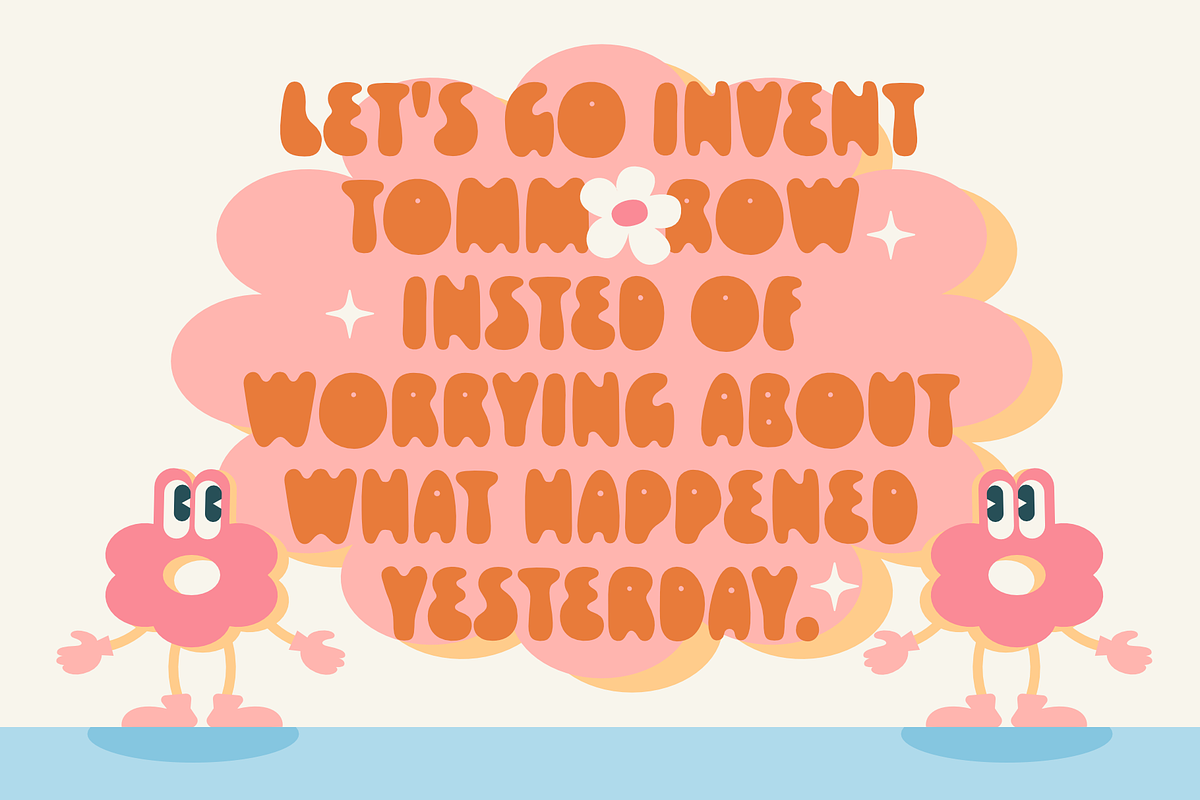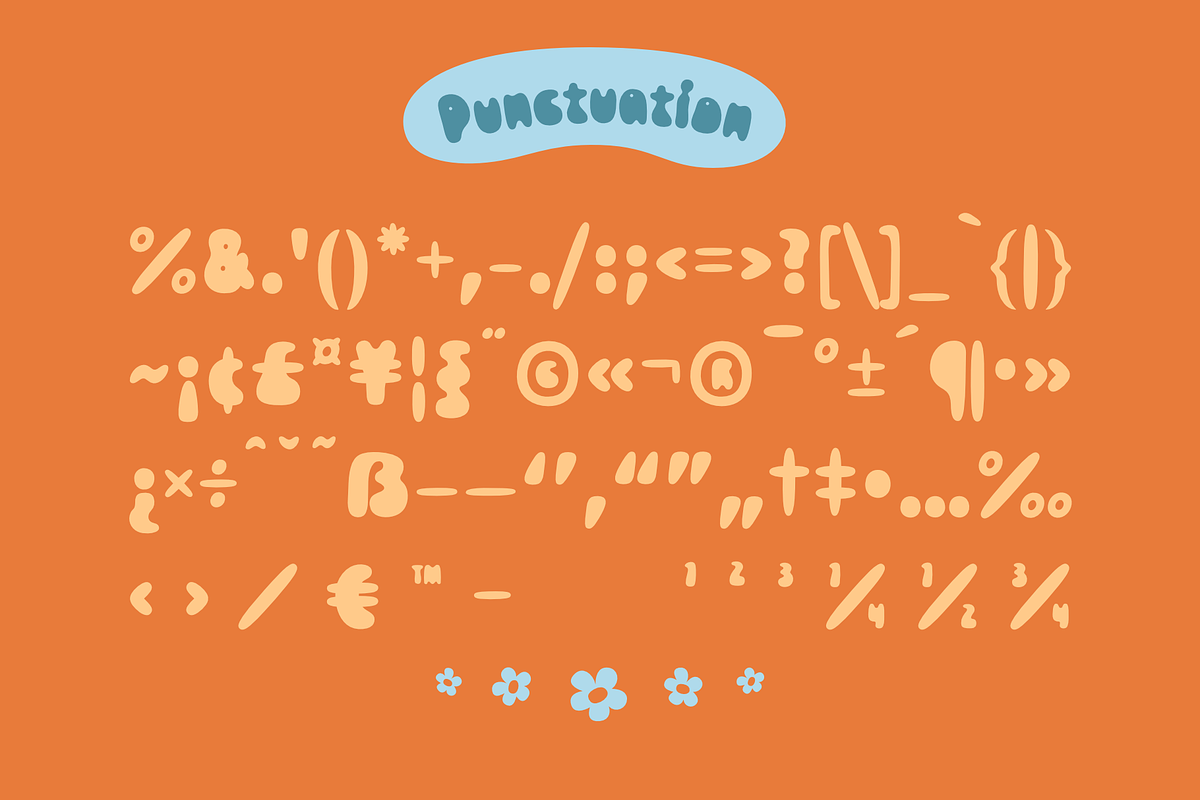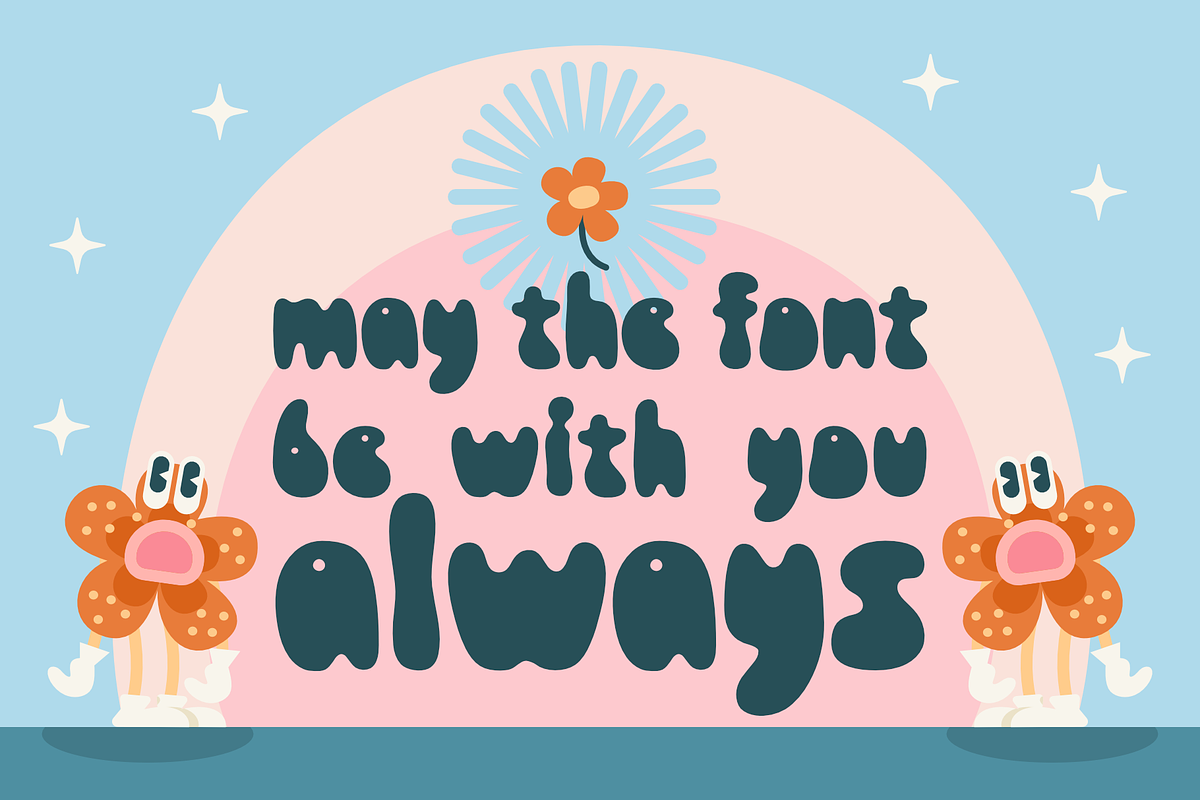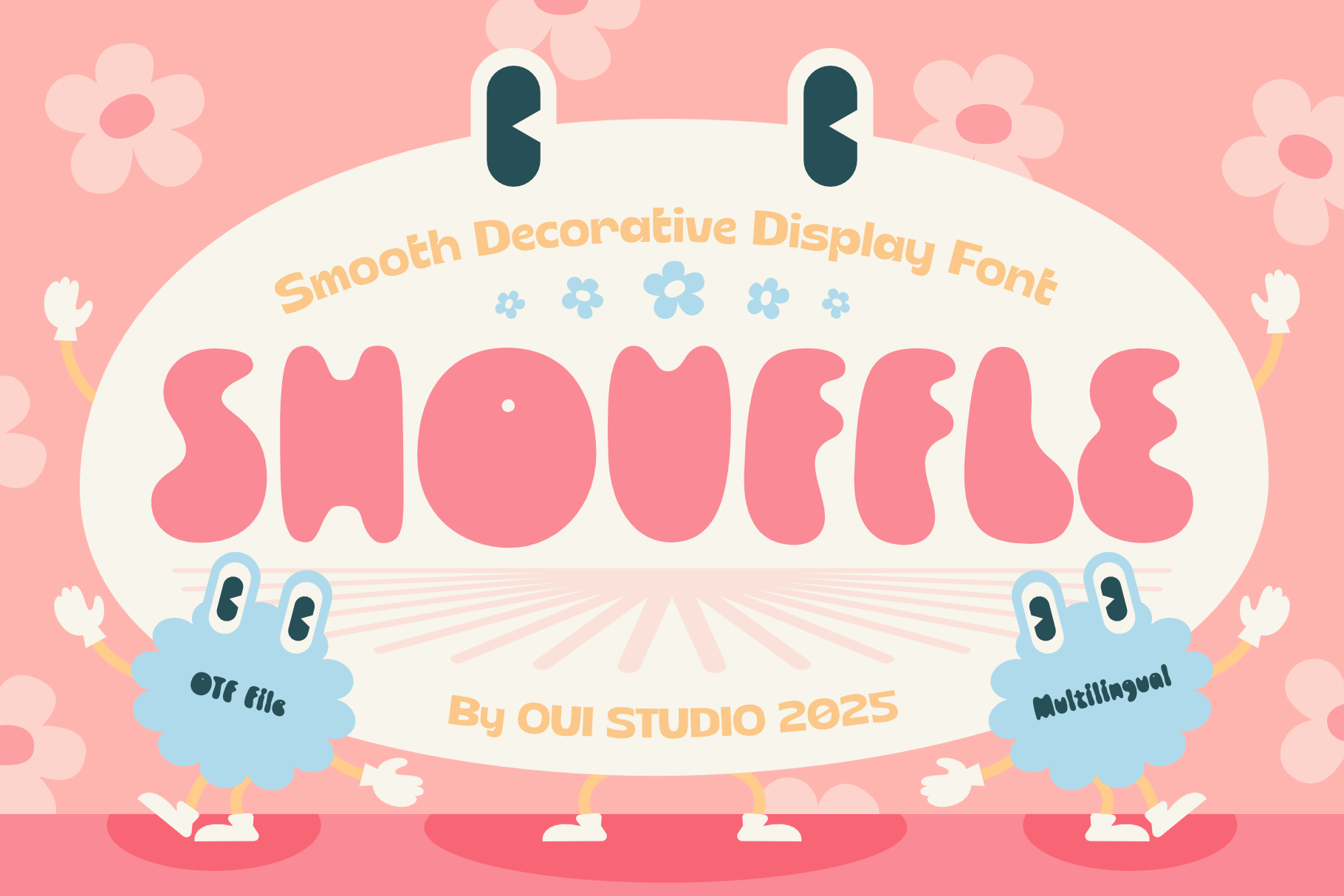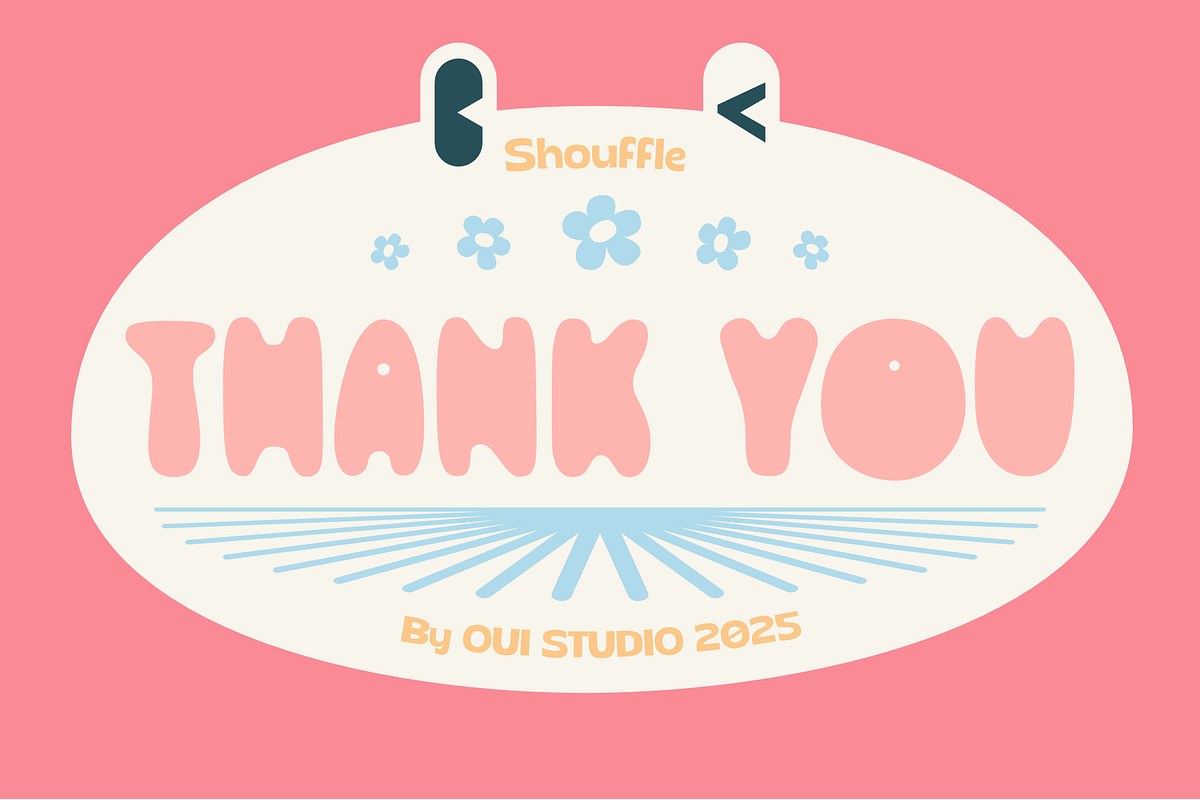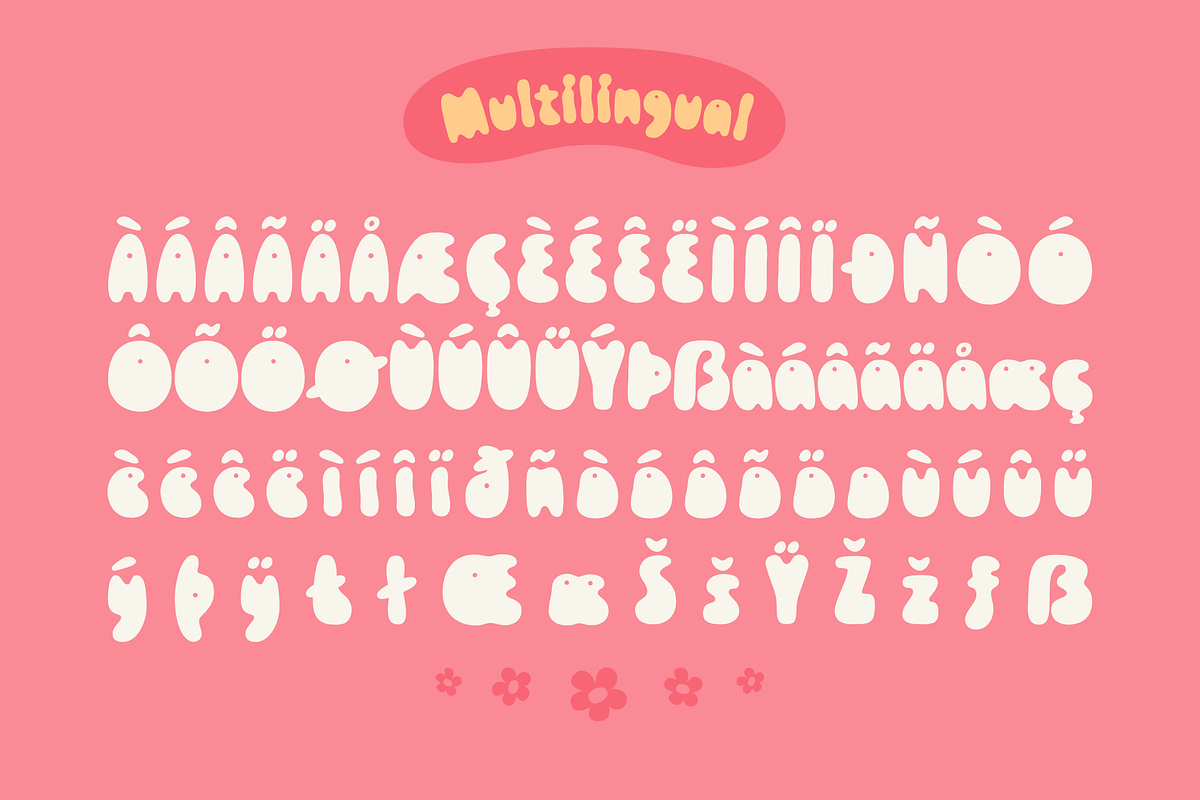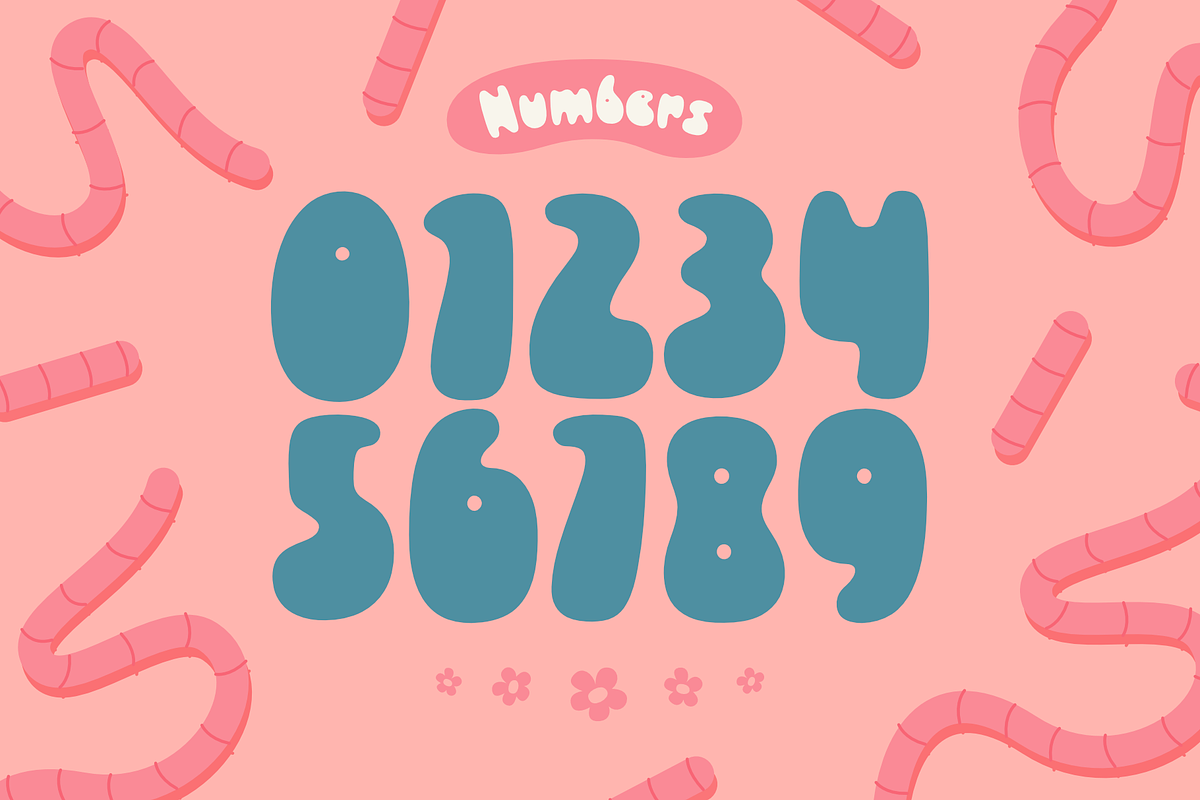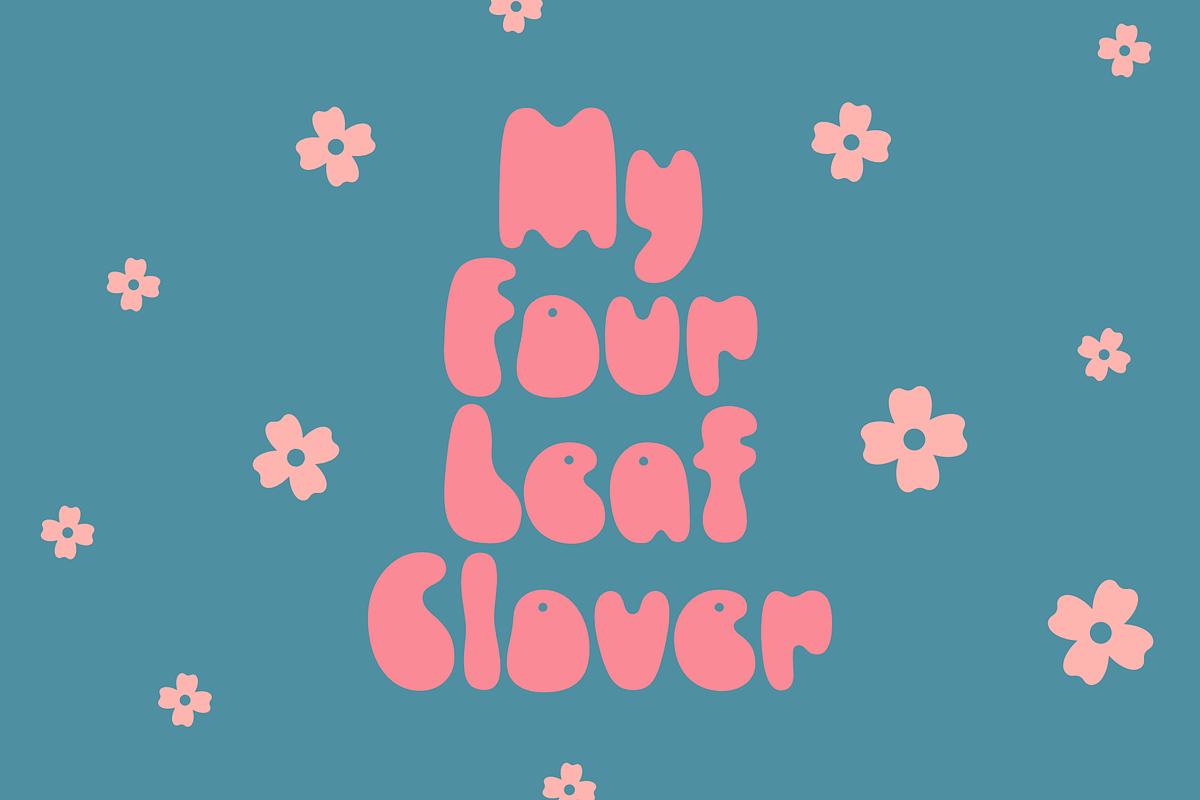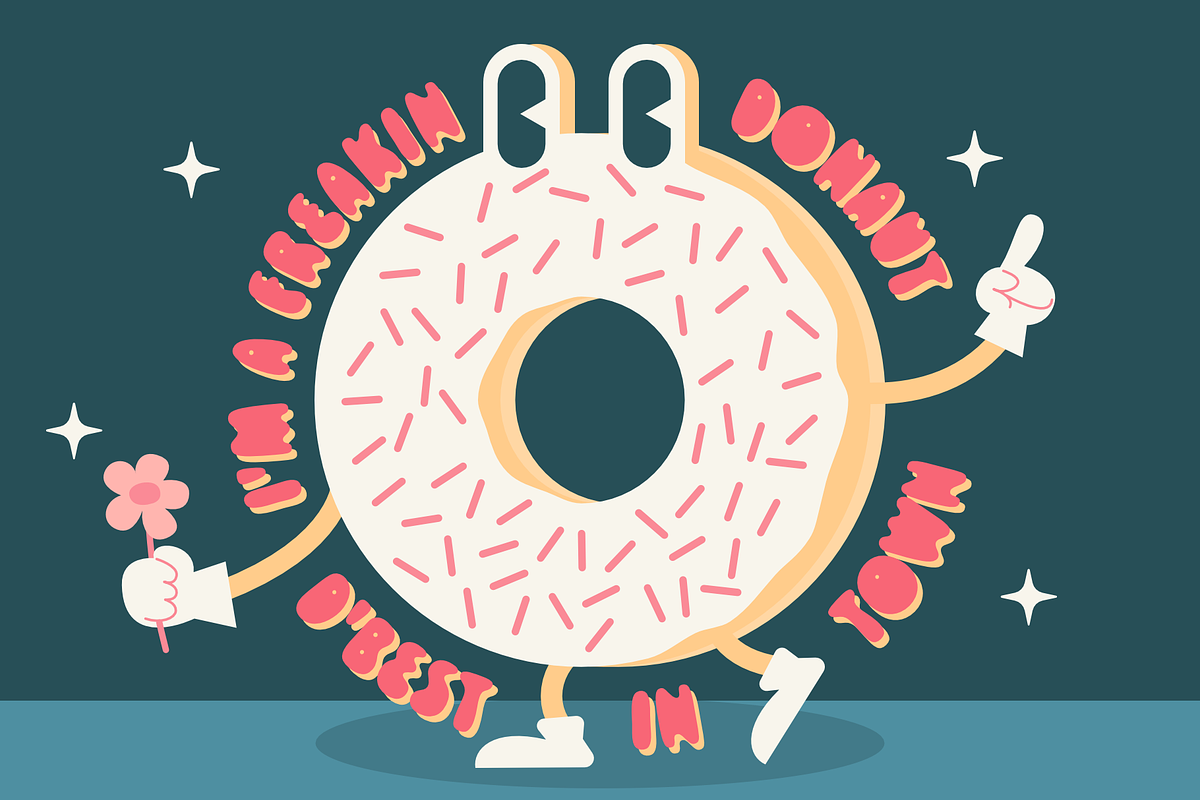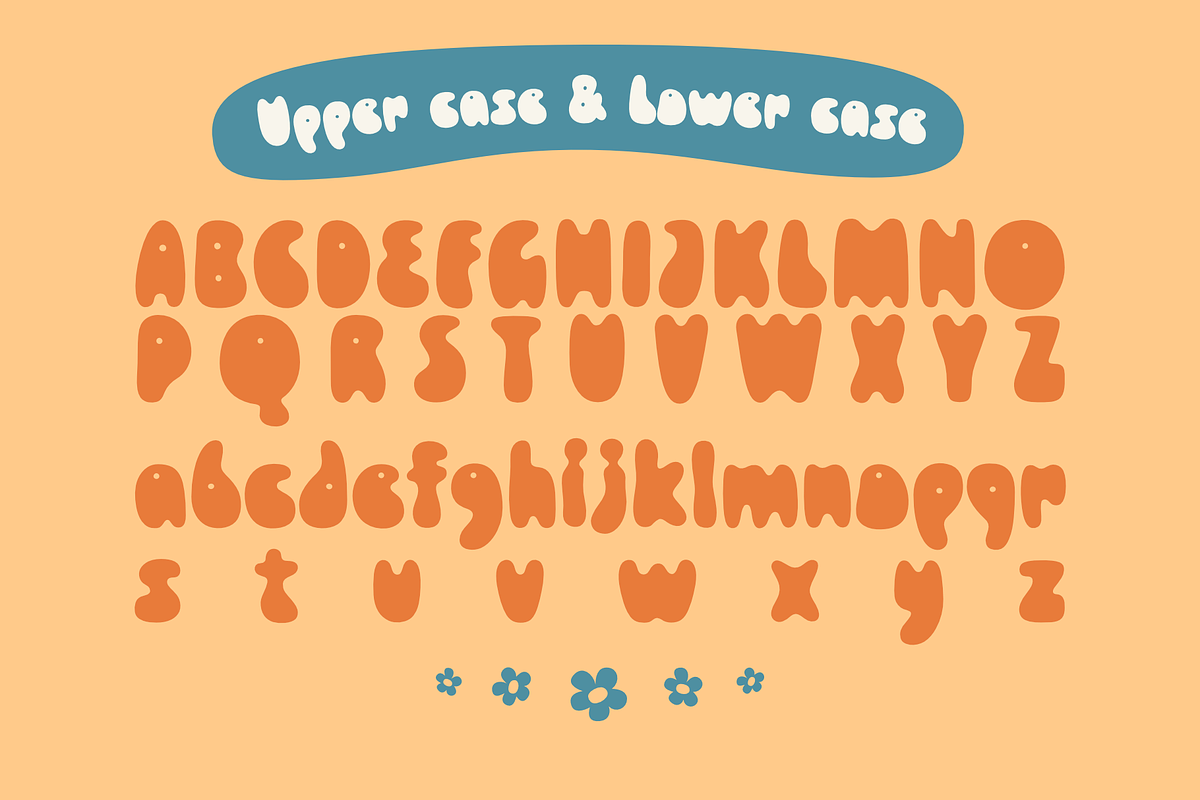
Shouffle Display Font
The Shouffle font is a striking display typeface that effortlessly blends modern sophistication with artistic flair. Its letterforms feature fluid curves paired with crisp, defined edges, giving the design a dynamic yet balanced character.
This font exudes both elegance and a hint of playfulness, making it ideal for creative branding, bold headlines, and eye-catching posters.
The nuanced strokes and innovative detailing ensure that each character makes a memorable impact. At the same time, its versatile design allows it to complement a wide range of visual projects—from contemporary logos to sophisticated editorial layouts. Overall, Shouffle is designed to capture attention and convey a sense of refined modernity, perfect for any project looking to stand out with style and confidence.